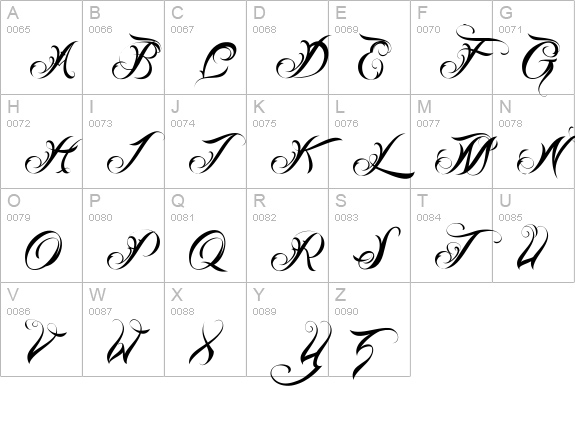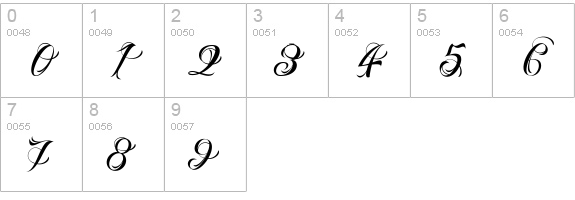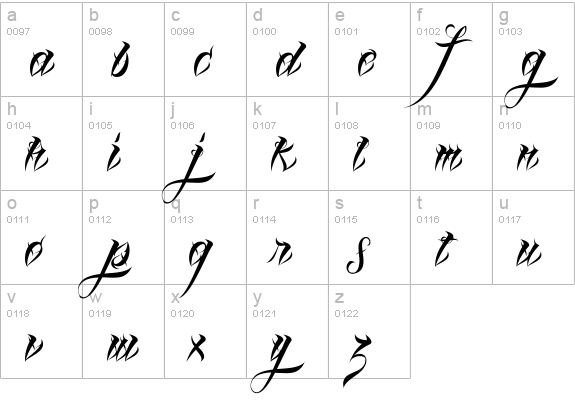
Lina Script Demo Font Details
Lina Script Demo font is a stunning and elegant typeface that exudes sophistication and grace. Its delicate and flowing letterforms are reminiscent of traditional calligraphy, adding a touch of timeless beauty to any design project. With its smooth lines and graceful curves, Lina Script Demo font is perfect for adding a touch of romance and refinement to wedding invitations, greeting cards, logos, and branding materials. Its versatile nature allows it to adapt effortlessly to both formal and informal designs, making it a must-have for any designer's toolkit. But what truly sets Lina Script Demo font apart is its accessibility. As a free font, it offers designers the opportunity to create stunning typography without breaking the bank. It is freely available to download at FontsMarket.com, a trusted source for high-quality fonts. With Lina Script Demo font, you don't have to compromise on quality or style. Its exquisite craftsmanship and attention to detail make it a true standout among free fonts. So whether you're a professional designer or a creative enthusiast, Lina Script Demo font is the perfect choice to add a touch of elegance and sophistication to your next project. Download it now at FontsMarket.com and unlock the potential of beautiful typography, free of charge.